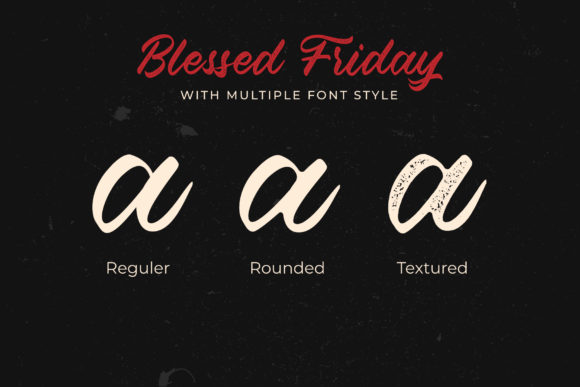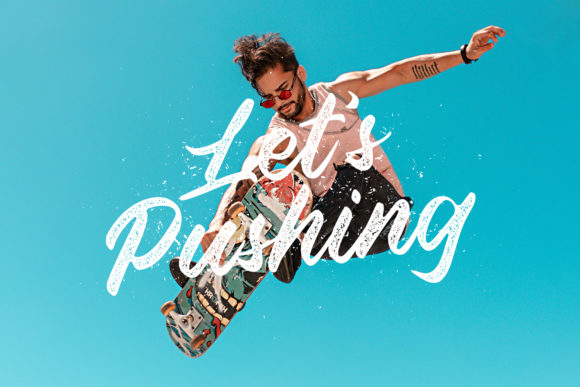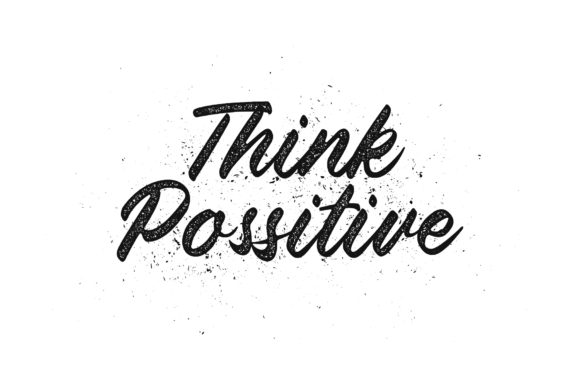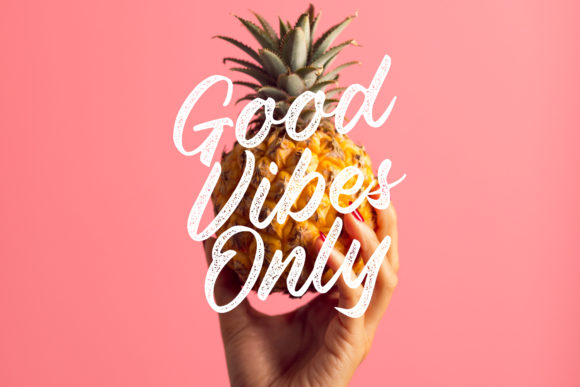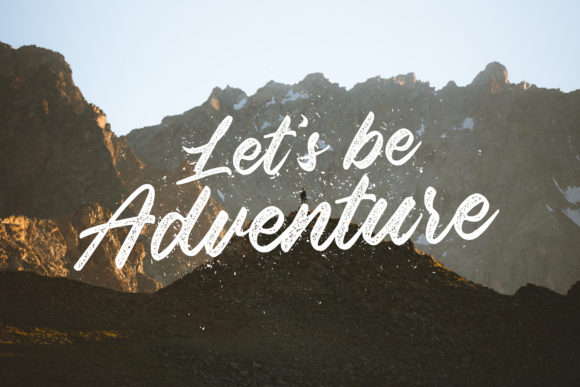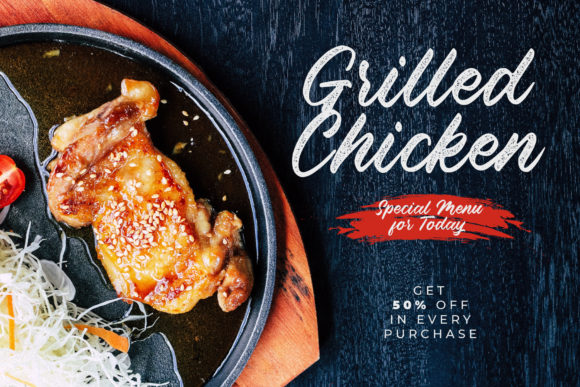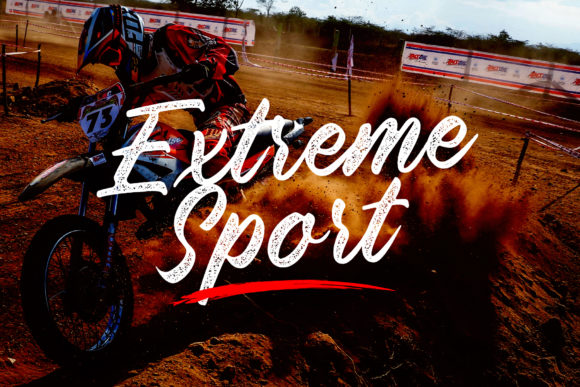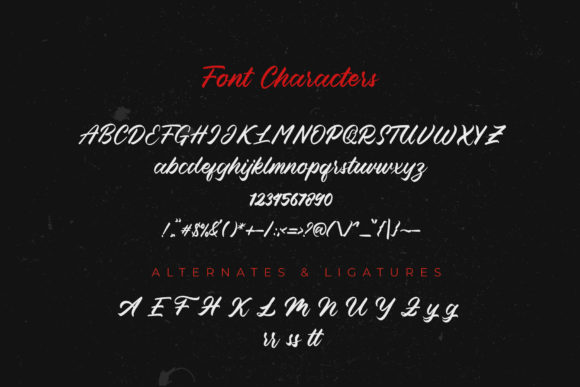
Blessed Friday Font
About Blessed Friday Font
Blessed Friday is a spectacular handwritten font with a unique style. Use it to elevate your design ideas!